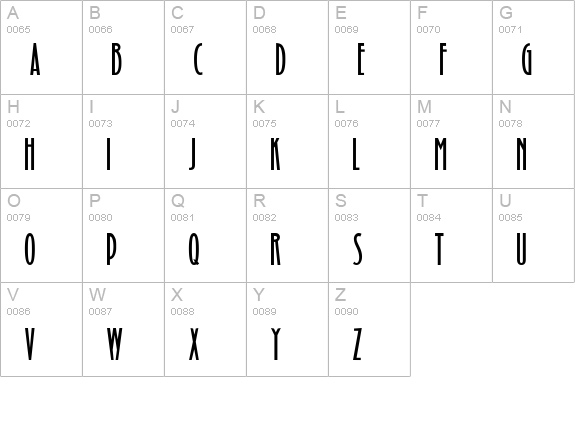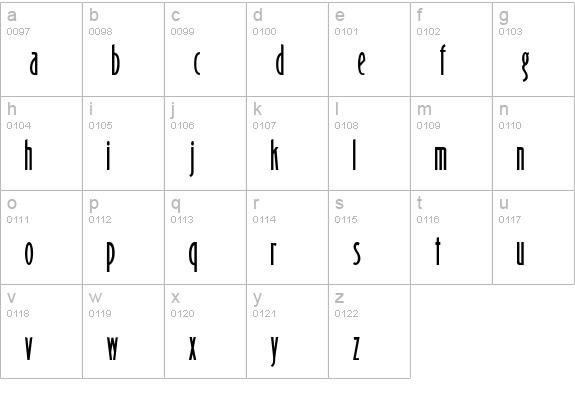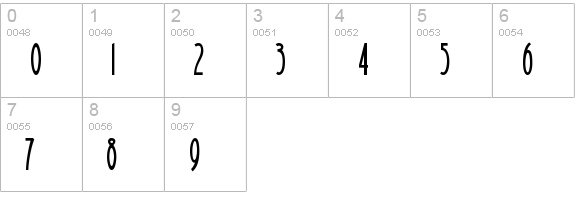
Binner Gothic Font Details
Binner Gothic is a striking and versatile typeface that exudes a sense of modernity and sophistication. With its clean lines and sharp edges, this font is perfect for creating impactful designs that demand attention. The bold and stylish letterforms of Binner Gothic make it an excellent choice for headlines, logos, posters, and branding materials. What sets Binner Gothic apart is not only its aesthetic appeal but also its accessibility. This font is available for free download at FontsMarket.com, allowing designers and creatives to easily incorporate it into their projects without any financial constraints. Whether you're working on a personal project or a client's design, Binner Gothic offers a high-quality and professional-looking option that won't break the bank. Don't miss out on the opportunity to enhance your designs with the sleek and modern look of Binner Gothic. Download it for free today and elevate your typography game to new heights.